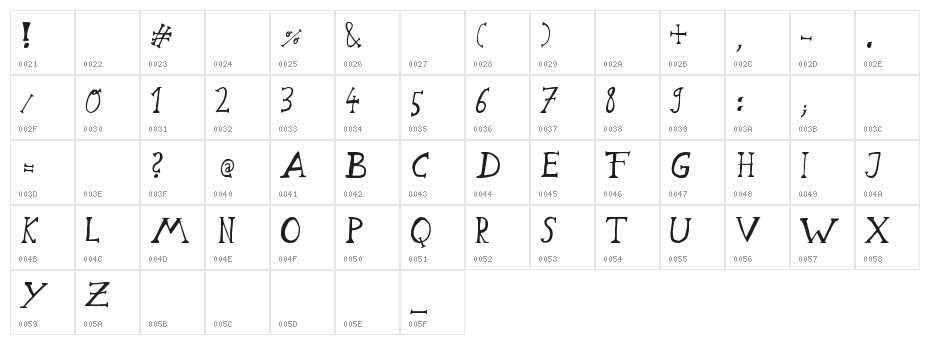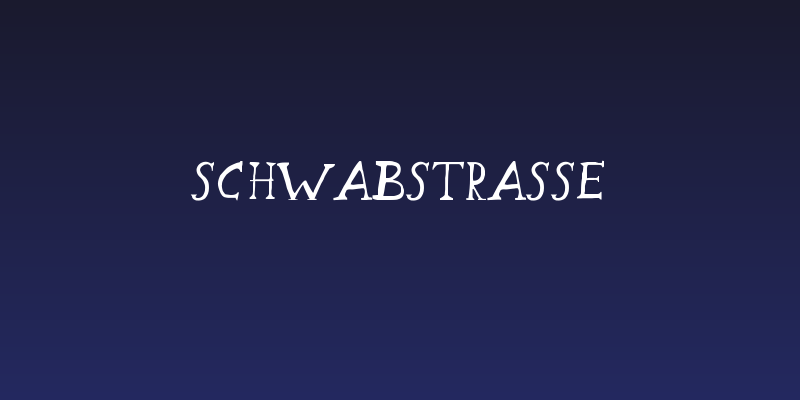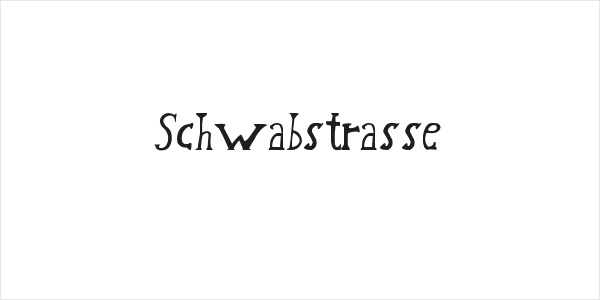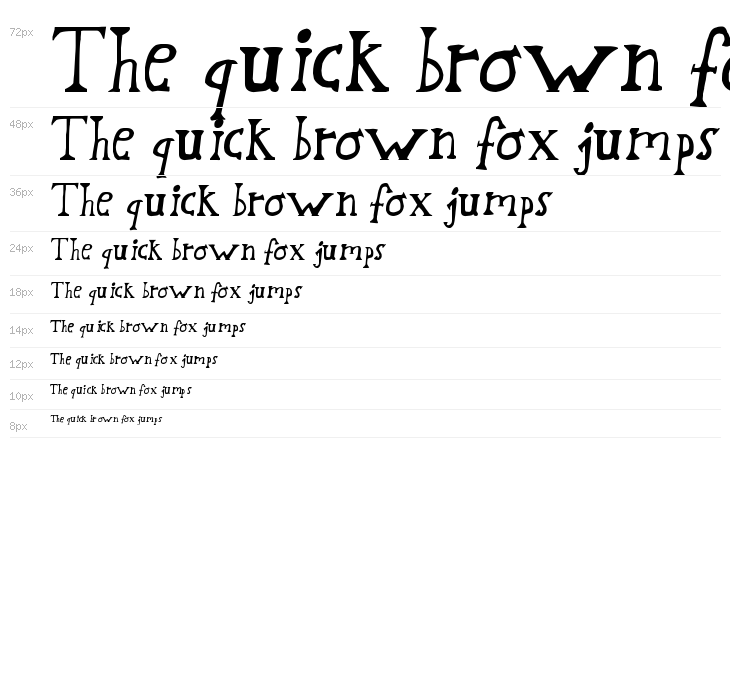
Schwabstrasse Font
Schwabstrasse Description
This font exhibits a unique and artistic style, characterized by its irregular and hand-drawn appearance. The letters have a whimsical and playful quality, with varying stroke thicknesses and uneven baselines that give it a dynamic and lively feel. The uppercase letters are bold and slightly tilted, while the lowercase letters maintain a consistent yet quirky design. The numerals and special characters follow the same artistic theme, adding to the font's overall charm. This font is perfect for projects that require a touch of creativity and individuality.
SCHWABSTRASSE UPPERCASE
SCHWABSTRASSE LOWERCASE
SCHWABSTRASSE OTHER CHARS
| Overall Style | Artistic |
| Proposed Projects | Ideal for creative projects such as children's books, artistic posters, and unique branding materials. |